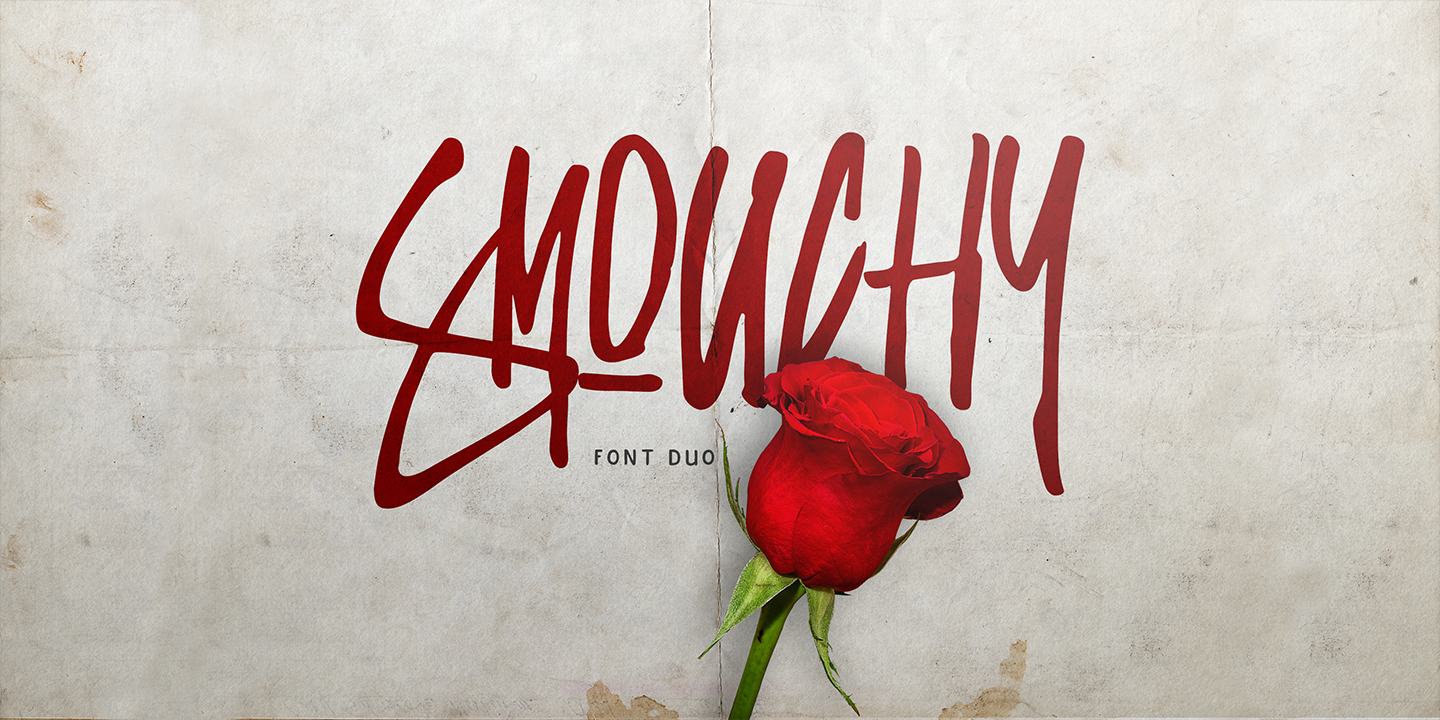
Smouchy Font Duo Font is perfect for romantic wedding invitations, love letter designs, Valentine's Day cards, couple branding, beauty salon logos, fashion boutique signage, cosmetic packaging, greeting card collections, romantic photography watermarks, and intimate event materials. This charming font combination brings heartfelt emotion and elegant romance to any design project.
What makes Smouchy Font Duo Font exciting is its perfectly paired combination of script and sans-serif styles that create beautiful typographic harmony for romantic designs. The script component features flowing, handwritten elegance with heart-inspired flourishes, while the complementary sans-serif provides clean readability and modern balance. Together, they offer designers unlimited creative possibilities for expressing love, intimacy, and sophisticated romance across various media applications.
The Smouchy Font Duo Font family includes multiple weights and decorative elements for both the script and sans-serif components. The collection features regular and bold weights, plus ornamental swashes, hearts, and romantic symbols that enhance the overall design versatility and emotional impact.
Express your most romantic design visions with Smouchy Font Duo Font Free Download and create unforgettable love-themed communications. This thoughtfully crafted font pairing delivers professional quality with genuine emotional resonance, making it ideal for both personal celebrations and commercial romantic branding. The extensive character sets support multiple languages and include special romantic glyphs, ensuring perfect compatibility for international love-themed projects. Whether you're designing wedding materials, romantic marketing campaigns, or intimate personal projects, this font duo provides the perfect balance of elegance and heartfelt expression.